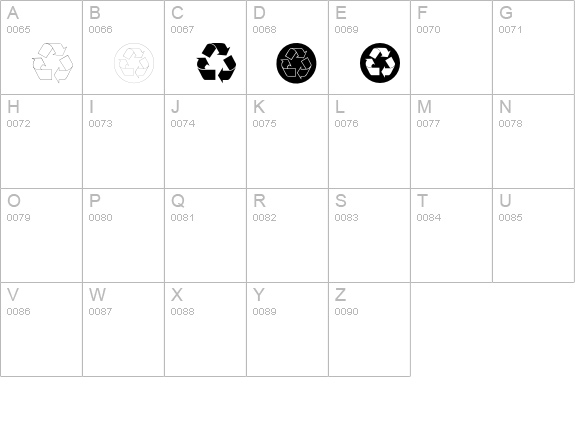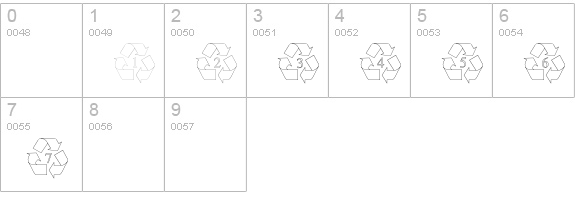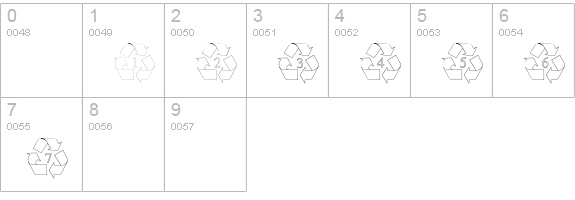
Recycle font is a sleek and modern typeface that embodies the essence of sustainability and eco-consciousness. With its clean lines and bold strokes, this font evokes a sense of harmony and balance, mirroring the principles of recycling and reusing. Designed with utmost care and attention to detail, Recycle font seamlessly blends form and function, making it suitable for a wide range of design projects. Whether you are working on a poster, logo, website, or any other creative endeavor, this versatile font is sure to make a lasting impression. What sets Recycle font apart is not just its unique design, but also the fact that it is freely available to download at FontsMarket.com. Yes, you read that right - you can get your hands on this remarkable font without spending a dime. It's the perfect opportunity to enhance your designs while staying true to your budget. By choosing Recycle font, you are not only getting a visually stunning typeface, but also contributing to the environment by utilizing a recycled resource. So why wait? Unleash your creativity and make a positive impact with Recycle font, available for free at FontsMarket.com.